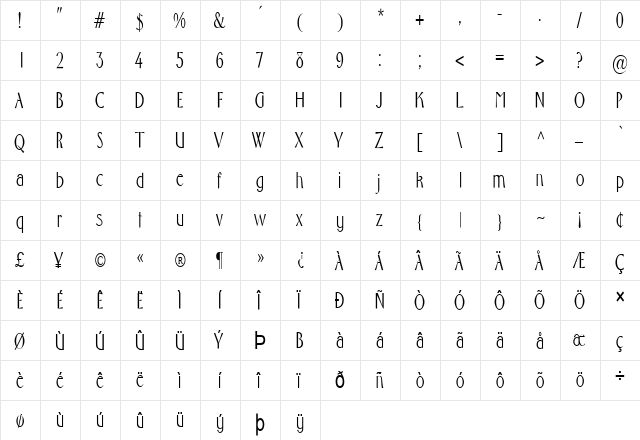
FZ BASIC 10 COND Normal
Design Context for FZ BASIC 10 COND Typeface
FZ BASIC 10 COND is a composed and adaptable typeface that performs quietly and consistently across a wide range of design contexts. The condensed width makes it efficient for tight spaces without sacrificing legibility.